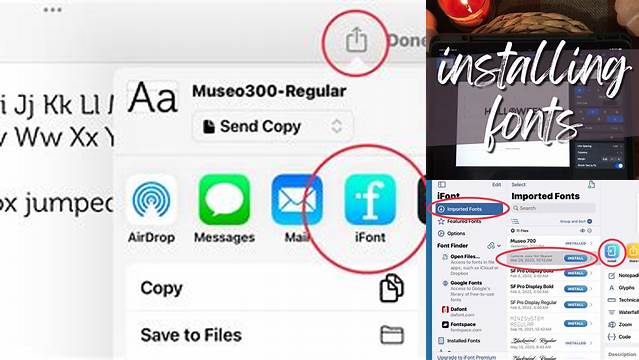
Install Fonts On IPad With IFont: A Step-by-Step Guide
Hey guys! Want to jazz up your iPad with some cool new fonts? You're in the right place! This guide will walk you through how to install fonts on your iPad using iFont, a super handy app. We'll cover everything from downloading the app to actually using your new fonts in your favorite apps. So, grab your iPad, and let's get started. Getting new fonts on your iPad can seriously level up your creative game, making everything from your notes to your social media posts look fresh and unique. iFont makes the whole process surprisingly easy, even if you're not a tech wizard. This article is designed to be your go-to resource for installing fonts on your iPad with iFont, ensuring you can personalize your digital world with your favorite typography. We’ll break down each step, provide helpful tips, and answer any questions you might have along the way, so you can transform your iPad's look and feel in no time. Are you ready to unlock a world of typography possibilities? Let's get started!
H2: Downloading and Setting Up iFont: Your First Steps
Alright, before we dive into installing fonts on your iPad, you'll need to get iFont. Think of iFont as the magic portal that lets you bring all those awesome fonts onto your iPad. Head over to the App Store and search for "iFont." It's free to download, which is always a bonus! Once you've found it, tap the "Get" button, and the app will start downloading. Give it a few moments to install; the time it takes depends on your internet speed. Once it's downloaded, open the iFont app. You'll see a clean and user-friendly interface. The first time you open it, iFont might ask for permission to access your files; go ahead and grant it access. This is how iFont will manage and organize your fonts. Make sure you understand and accept its terms and conditions. After a quick initial setup, you are ready to proceed with the font installation. This is the foundation. Setting up iFont correctly means you’re laying the groundwork for a smooth and enjoyable font-installing experience. Remember, understanding the basics from the start ensures that you avoid unnecessary headaches later. The app is designed to be super intuitive, so you shouldn't have any trouble navigating it. Just take your time, follow the prompts, and you'll be set up in no time. Getting iFont ready is a breeze, setting the stage for you to easily manage and add cool fonts, enhancing your iPad’s visual flair. Enjoy exploring the app’s features and getting familiar with its layout.
H2: Finding and Downloading Fonts for Your iPad
Now that you have iFont installed, it’s time to find some fonts! This is where the fun really begins. iFont lets you download fonts directly from various sources, including Google Fonts and other websites that offer free fonts. Inside the iFont app, you'll find a section that lists different font sources. You can browse through these sources or, if you have a specific font in mind, search for it by name. Google Fonts is a fantastic place to start. It offers a vast library of fonts, all free and ready to use. Explore different styles and categories to find fonts that match your aesthetic. When you find a font you like, tap on it, and you’ll see more details about it, including its name, designer, and a preview. To download the font, tap the "Download" button. The font will then be downloaded to your iPad. You can also download fonts from other websites by browsing on your iPad and then opening the font files in iFont. Make sure the websites you download from are reliable to avoid any security risks. Remember, a good font can completely transform your documents, presentations, and creative projects. So, take your time and choose fonts that resonate with you. With the plethora of options available, you can truly make your iPad's display your own. Consider using a font manager to organize your downloaded fonts efficiently. iFont simplifies this process, allowing you to manage your growing collection with ease. Keep an eye out for font licenses, ensuring you use the fonts in compliance with their terms.
H2: Installing Fonts Using iFont: The Simple Process
Ready to install those fonts? Let's get to it! The process is pretty straightforward, thanks to iFont. Once you've downloaded the font, it will appear in the "Downloaded" section of the iFont app. Tap on the font file to open it. You’ll see a preview of the font and an "Install" button. Tap the "Install" button. iFont will then guide you through the installation process. This often involves opening the Settings app on your iPad. You'll be prompted to install a profile. Tap "Install" again, and enter your passcode if required. This profile allows the fonts to be added to your system. Once the profile is installed, the font will be available for use in compatible apps. Some fonts might require additional steps, but iFont makes sure everything is as simple as possible. The app provides detailed instructions and guides you through each step. Always follow the prompts carefully, and you'll have your new fonts installed in no time. If you encounter any issues, iFont usually provides troubleshooting tips or links to support resources. The whole installation process is designed to be user-friendly, even for those who are not tech-savvy. Don't worry if the process seems a little complex at first; you’ll get the hang of it quickly.
H2: Troubleshooting Common Font Installation Issues
Sometimes, things don't go as planned, but don’t sweat it! Here are some common issues and how to fix them. One of the most common problems is not being able to find the font in the app you're using. Make sure the app supports custom fonts. Not all apps do. Check the app's settings to see if there's an option to choose custom fonts. If the font isn't showing up, try restarting your iPad. This can often resolve minor glitches. Also, double-check that you've installed the font correctly by going back to the iFont app and verifying its installation status. Another issue might be compatibility. Some fonts are designed for specific software or systems. Make sure the font is compatible with your iPad and the apps you intend to use it with. If you are facing problems with font rendering, ensure the font file is not corrupted. Try reinstalling the font. The app’s update can also occasionally fix font-related problems. Keeping iFont updated is a good idea. In the unlikely event that there are persistent problems, reach out to iFont’s support team, or search the community forums for solutions. Remember, patience and persistence often pay off when troubleshooting technical issues. With a little persistence, you can usually resolve any problems and get your fonts working perfectly. These tips can save you a lot of frustration and get you back on track quickly.
H2: Using Your New Fonts in Different Apps
Alright, your fonts are installed, now what? Let's see how to use them in your favorite apps. First, it’s important to know which apps support custom fonts. Popular apps like Pages, Keynote, and Microsoft Word on the iPad definitely do. Open one of these apps and start a new document. When you go to format your text, you should see your newly installed fonts listed in the font selection menu. Tap on a font to apply it to your text, and watch your words transform. If you don't see your fonts, make sure you’ve followed the installation steps correctly and that the app is updated. Some apps might require you to select your fonts in a slightly different way. Experiment with the app’s formatting options to find the font settings. Beyond document creation, you can also use your new fonts for creating eye-catching social media posts. Apps like Canva, which are designed for graphic design, also support custom fonts, giving you even more creative control. Explore the possibilities and have fun with your new fonts. From creating professional documents to designing beautiful graphics, your iPad's font library is now richer and more versatile. Learning how to use your new fonts across different applications is a crucial step. Each app might have a unique interface for font selection. Once you understand how to access and apply your fonts, you’re on your way to making your content pop.
H2: Organizing and Managing Your Installed Fonts
Keeping your fonts organized is just as important as installing them. You don't want a chaotic mess of fonts! iFont helps you manage your fonts, allowing you to easily view, sort, and remove fonts. Open the iFont app and navigate to the "Installed" or "My Fonts" section. Here, you’ll see a list of all the fonts installed on your iPad. You can sort these fonts by name, date installed, or any other relevant criteria. This makes it easier to find the font you're looking for. If you want to remove a font, simply select it and tap the "Remove" or "Delete" button. Removing fonts you no longer use can help to keep your iPad uncluttered. iFont often allows you to create custom collections or groups, enabling you to categorize your fonts, for example, by style or project. Regular font organization ensures your font library remains manageable and functional. This also makes it easier to find the right font for the job. Consider creating a system where you label your fonts. This helps to find and identify fonts quickly. Keeping your fonts well-organized is essential for making the most of your creative endeavors. A tidy font library is an indication of professional approach. You can save a lot of time and avoid confusion by keeping your font collections well-managed.
H2: Tips and Tricks for Font Selection and Usage
Choosing the right font can make or break your design. Here are a few tips to help you select and use fonts effectively. First, consider the purpose of your text. Is it for a headline, body text, or a specific design element? Choose fonts that complement each other and create a cohesive look. Don’t be afraid to experiment. Try different font combinations to see what works best. There are tons of resources online with font pairing suggestions. Readability is key, particularly for body text. Choose fonts that are easy on the eyes and avoid overly decorative fonts for large blocks of text. Think about the mood or tone you want to convey. Different fonts evoke different feelings, so choose fonts that align with your message. When using multiple fonts, be mindful of the number of fonts you use. Too many fonts can make your design look cluttered and unprofessional. Make sure to test your fonts on different devices and screen sizes to ensure they look good across the board. Learn about the different font classifications, such as serif, sans-serif, and script. Understanding these will help you make more informed choices. Pay attention to the kerning and leading of your fonts. Adjusting these settings can improve the overall look of your text. With these tips, you’ll be able to create visually appealing designs.
H2: Exploring Different Font Styles and Categories
Let's dive into the wonderful world of font styles and categories! Different fonts can change the look and feel of your content. Serif fonts, like Times New Roman or Garamond, have small strokes at the ends of the letters. These fonts are often used for body text because they are easy to read. Sans-serif fonts, like Arial or Helvetica, don't have these strokes and often appear more modern and clean. They work great for headlines and digital displays. Script fonts mimic handwriting. They can add a touch of elegance or playfulness. However, use them sparingly, as they can be harder to read. Display fonts are designed to stand out. They can be bold, decorative, or unique. Use them for headlines, logos, or special design elements. There are many different categories to explore. Each category offers its own characteristics and is suitable for different purposes. Experimenting with different styles is the fun part! You can create a unique look by mixing and matching different styles. Look at what makes each font style different to help you make a more educated choice for your design. Understanding font styles helps you make informed decisions. Discovering diverse font categories can greatly improve the effectiveness of your designs. Embrace creativity.